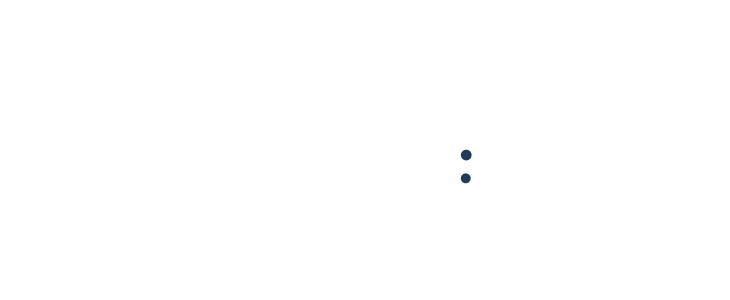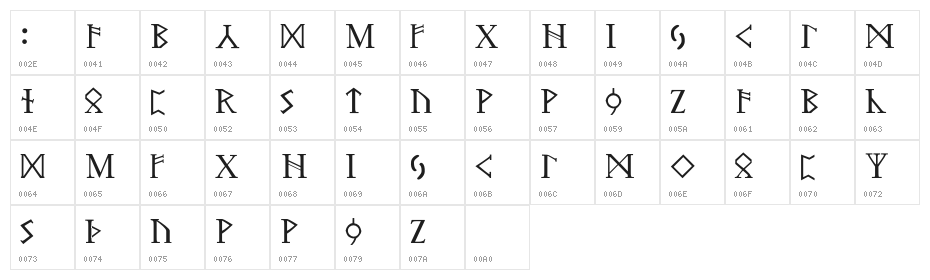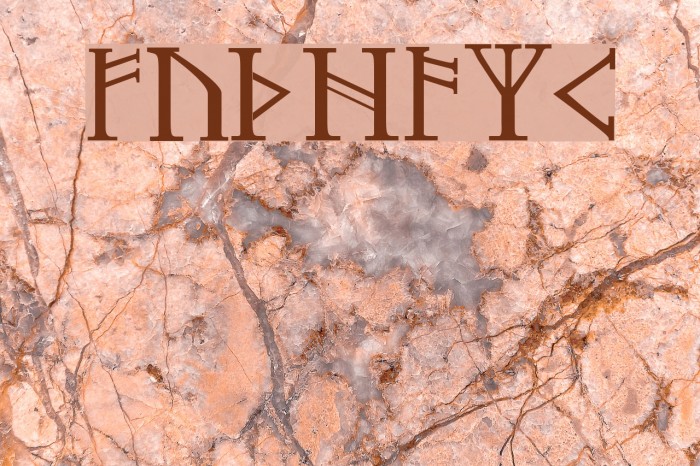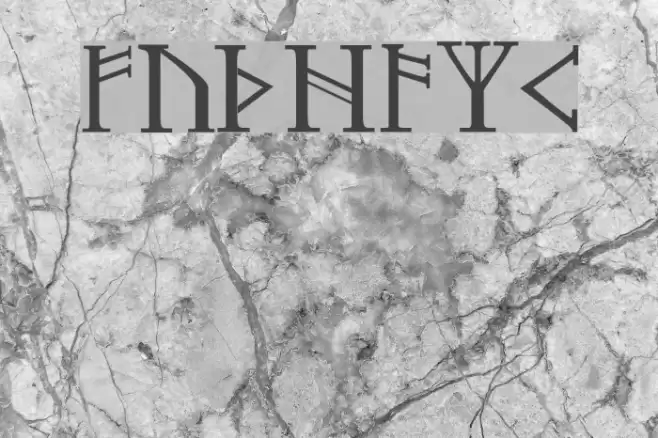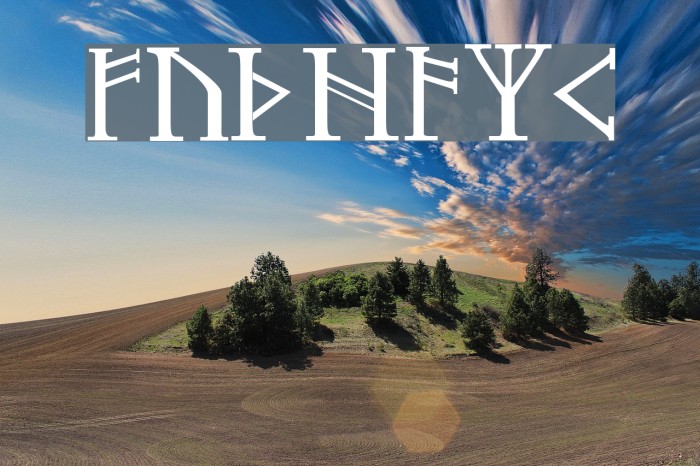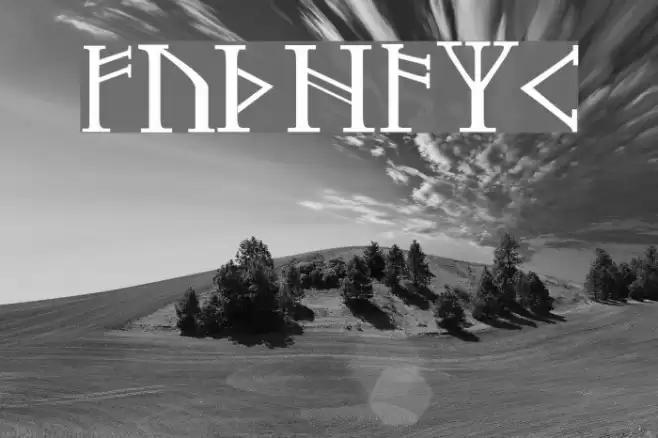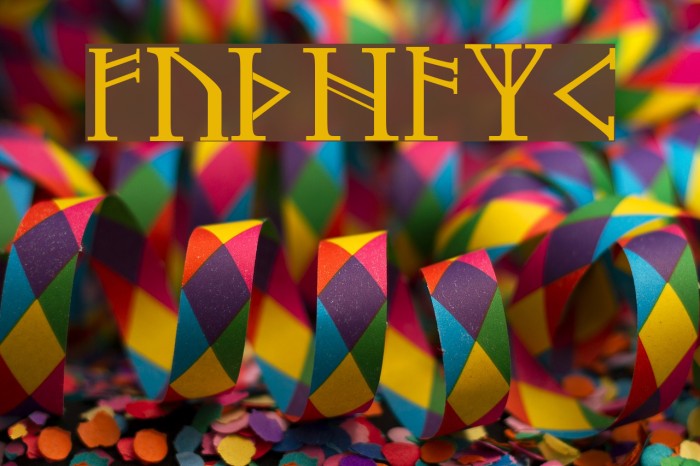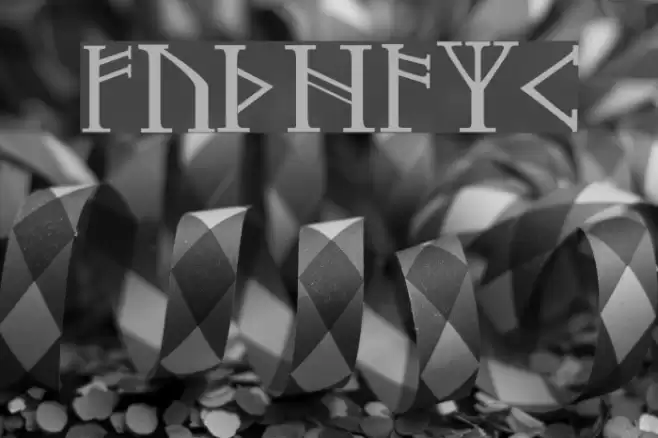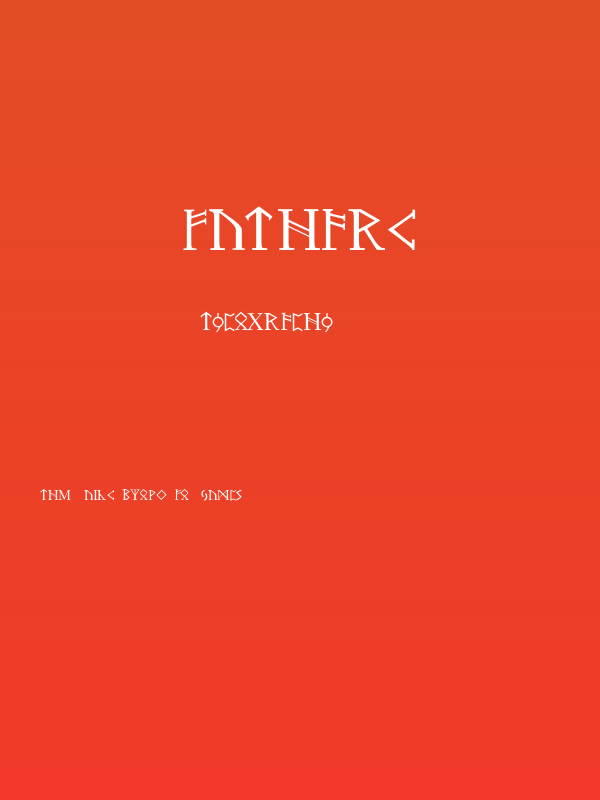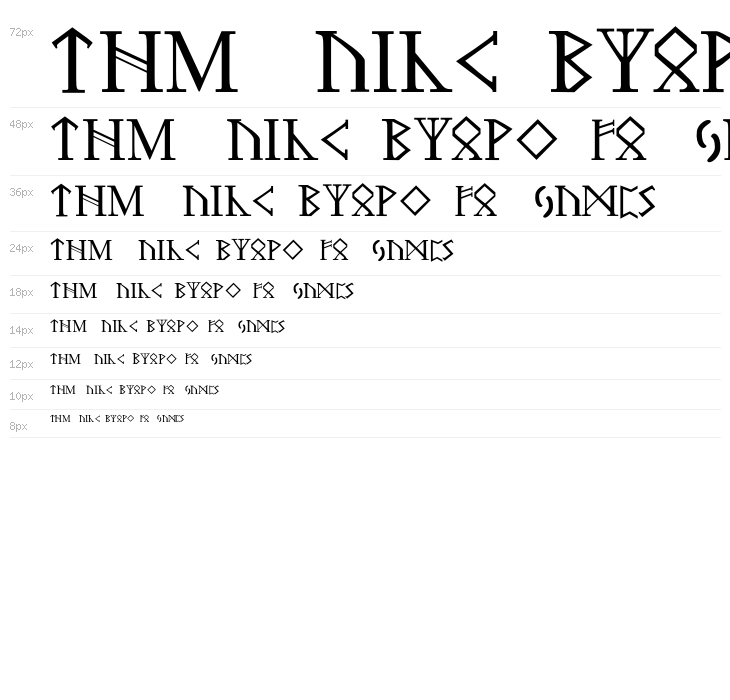
Futhark Font
Futhark Description
This font is inspired by ancient runic alphabets, featuring angular and geometric shapes that evoke a sense of mystery and historical depth. The characters are composed of straight lines and sharp angles, giving it a distinct and bold appearance. The font maintains a consistent weight throughout, with medium stroke contrast that enhances readability while preserving its unique style. The spacing between characters is normal, allowing for clear legibility without compromising the intricate design. This font is perfect for projects that aim to capture an ancient or mystical aesthetic, making it suitable for themed designs, fantasy games, or historical publications.
| Overall Style | Mystical, Ancient, Historical |
| Use Case | Themed designs, Fantasy games, Historical publications |
| Proposed Projects | Ideal for fantasy games, themed designs, historical publications, or any project seeking an ancient or mystical aesthetic. |